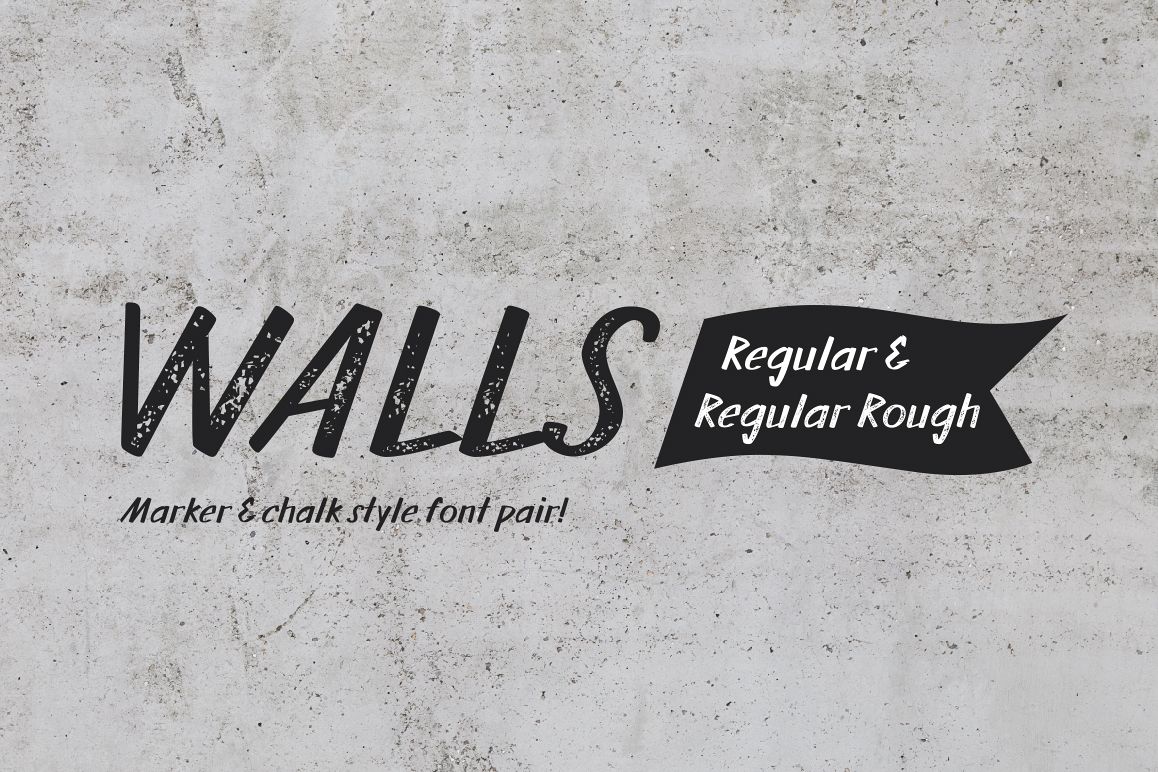
Walls Regular & Walls Rough Regular
Walls Regular
Walls Regular Rough
We are glad to present you the Walls Regular & Walls Rough Regular font pair, consisting of fonts styled as felt tip pen and chalk inscriptions.
Sometimes we only need a few faces to make our creative ideas come to live. For this specific purpose we've split some of our popular font families into all-sufficient font pairs.
What do you use to write a price tag at a store or to design a wall menu in a cafe? What to choose — a marker or chalk? Now it makes no more sense to be torn apart by the choice — use both techniques for your design.
Walls allows to perfectly combine an eco-friendly style with contemporary motives. Walls supports over 70 languages.
Initially we wanted to create a font that would imitate an inscription made by a square tip marker which is usually used to write price tags at supermarkets, shops and cafes. During the working process we've decided to extend the conceptual boundaries added Rough typeface that imitate the style of ecologic chalk writing.